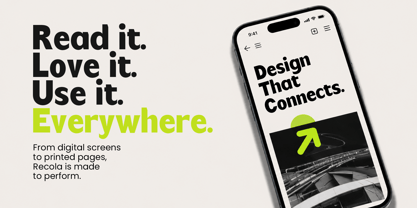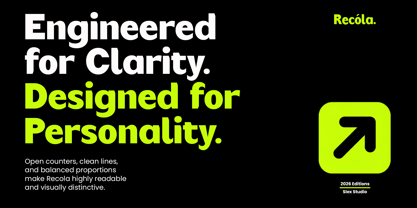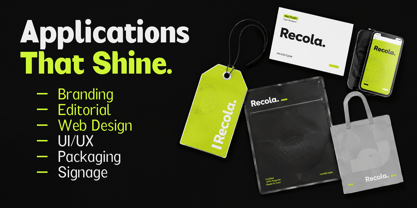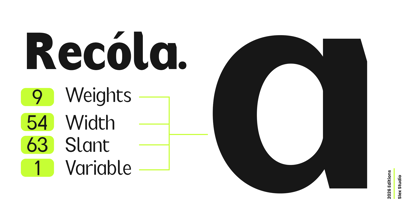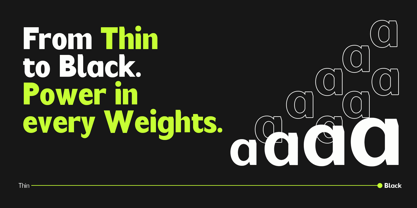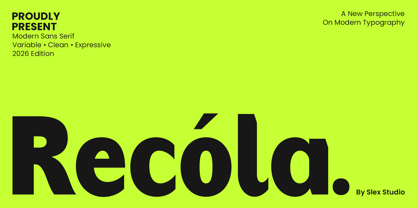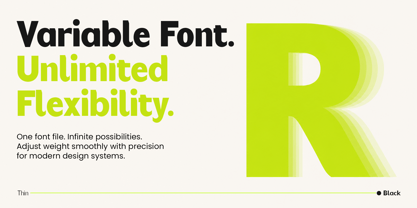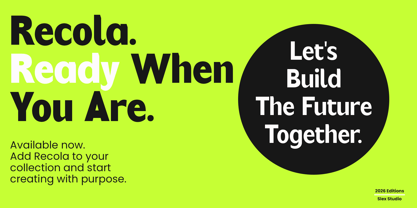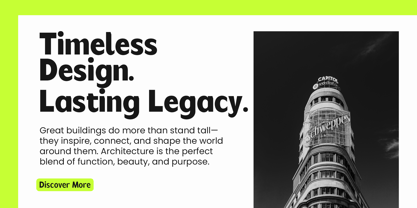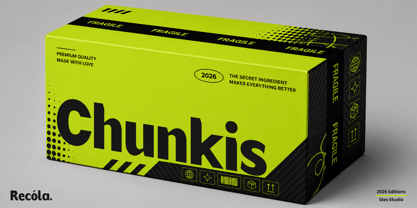
Recola
Die Schriftfamilie Recola wurde von Muhammad Rayyan entworfen und von Slex Studio veröffentlicht. Recola enthält 126 Stile und Familienpaketoptionen. Mehr über diese Familie
Recola is a contemporary sans-serif typeface crafted to bring bold personality and refined clarity into modern design. Combining clean geometric construction with expressive curves, Recola delivers a confident visual voice that feels both approachable and distinctive. Its strong proportions, open counters, and carefully balanced spacing ensure excellent readability across branding, editorial, digital interfaces, packaging, and advertising applications.
Designed as a versatile variable font, Recola offers seamless weight transitions that allow designers to create everything from subtle typographic hierarchies to powerful statement headlines within a single font family. The typeface embraces a modern aesthetic while maintaining a warm, human touch, making it equally suitable for innovative startups, lifestyle brands, creative campaigns, and forward-thinking visual identities.
With multilingual support, extensive character coverage, and a flexible design system, Recola empowers creators to build memorable brand experiences with confidence. Bold when it needs attention, clean when it demands clarity, and expressive when personality matters, Recola is a typeface designed for the next generation of visual communication.